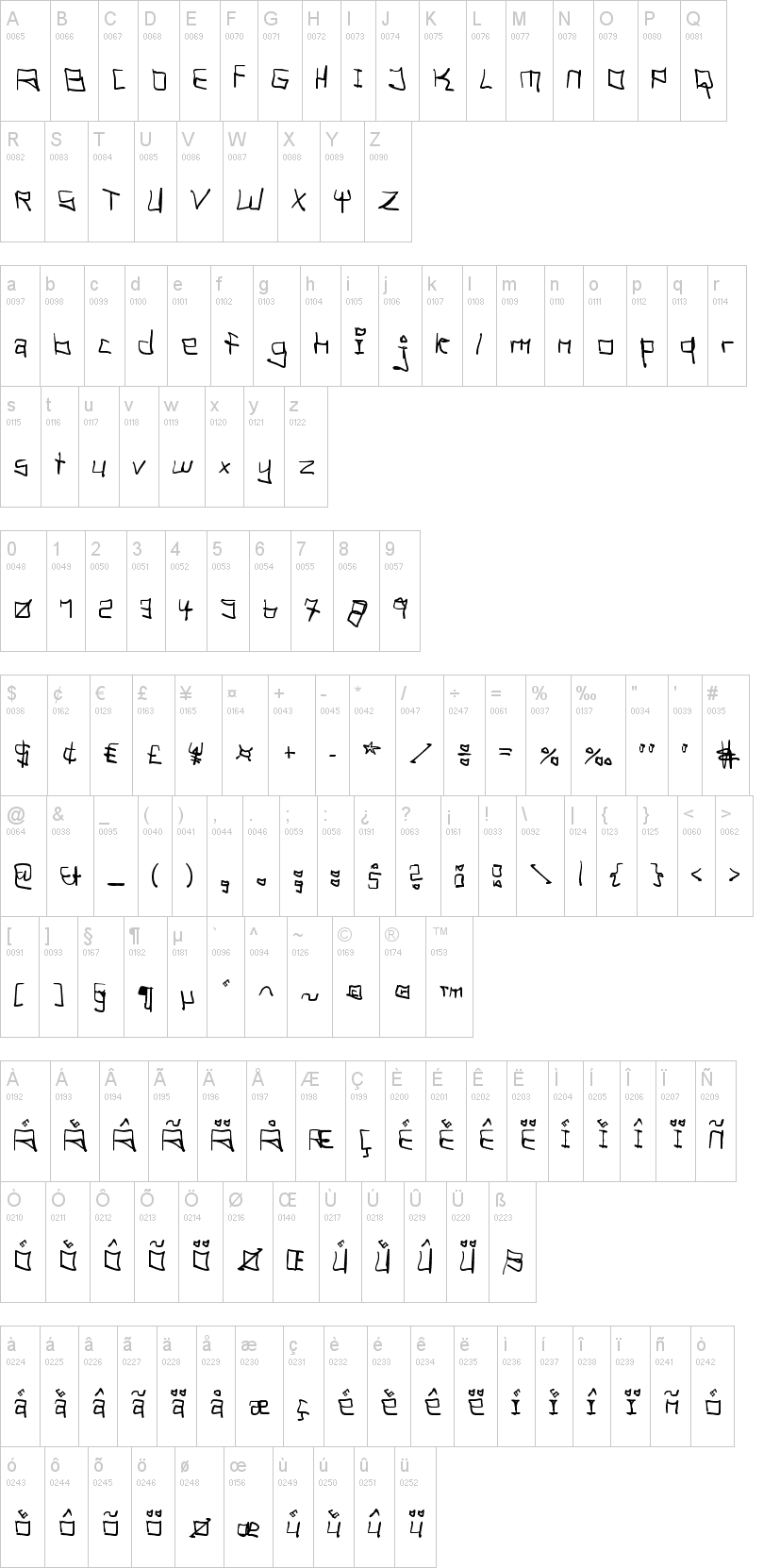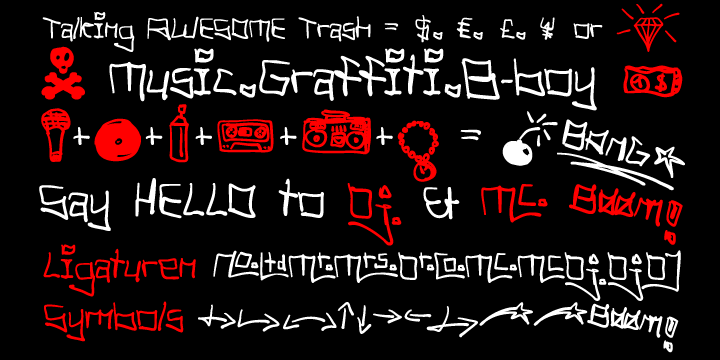
Tag Hand Graffiti Trash_fat.otfNote of the authorHeadline Font / Display Font / Fancy Font "Tag Hand Graffiti Trash"
OpenType Font with 393 glyphs - alternative letters and ligatures (with accents & ) & 2 styles (regular & fat) + dingbats